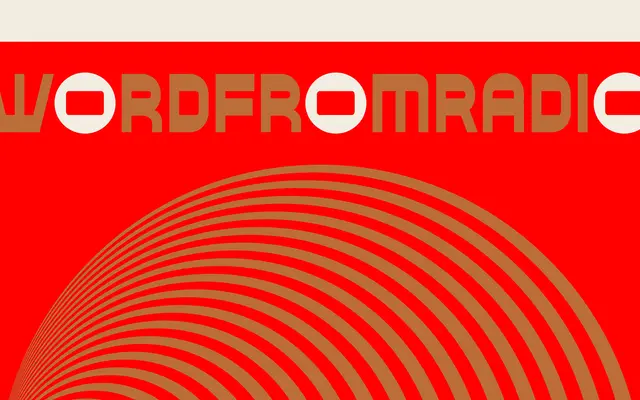
Word From Radio
A display face modelled on mid-20th century vinyl record lettering, mixing psychedelic energy with space-age graphic style.
Inspired by the hand-lettering found on retro vinyl record sleeves, the design channels the funky, forward-looking spirit of 1960s and 70s album art. The result sits somewhere between hippie psychedelia and mid-century futurism, making it suited to posters, record-related branding and retro-themed campaigns. Best used at large sizes where its decorative character can be read clearly.
A decorative display face drawing on mid-century vinyl record lettering, combining funky, psychedelic and space-age influences typical of 1960s–70s graphic design.